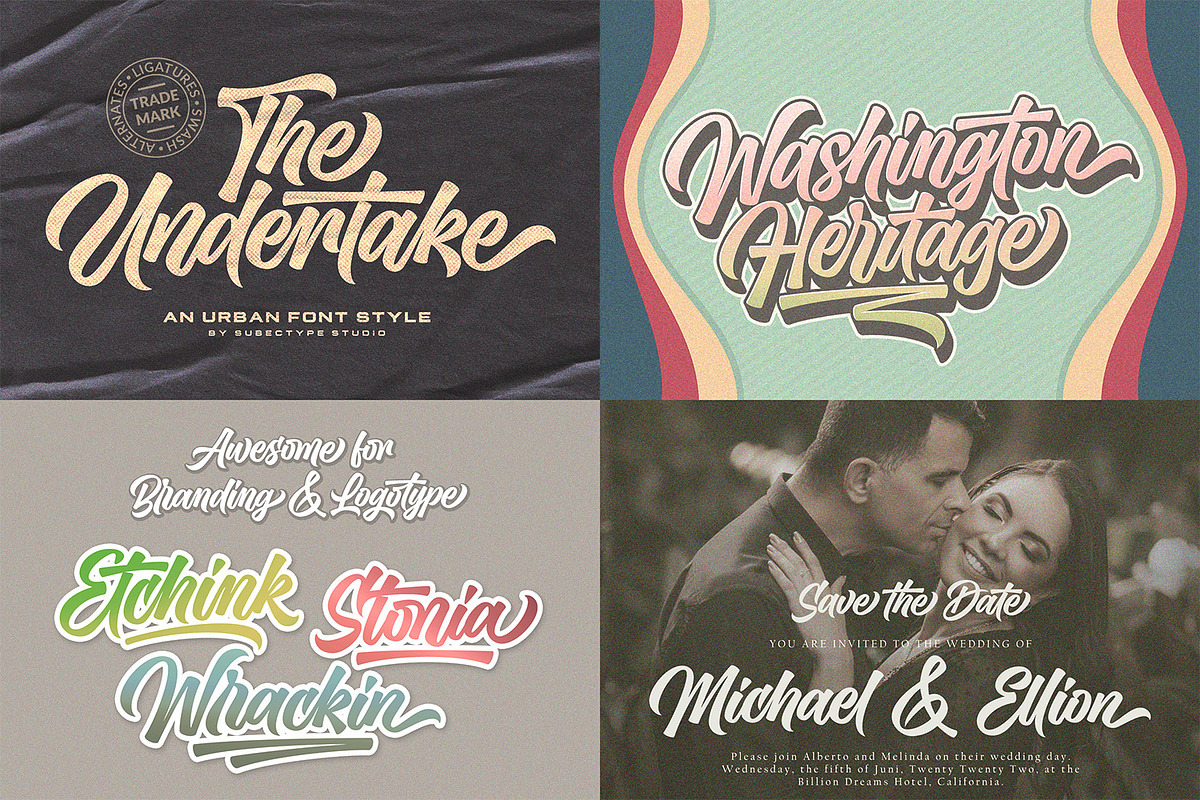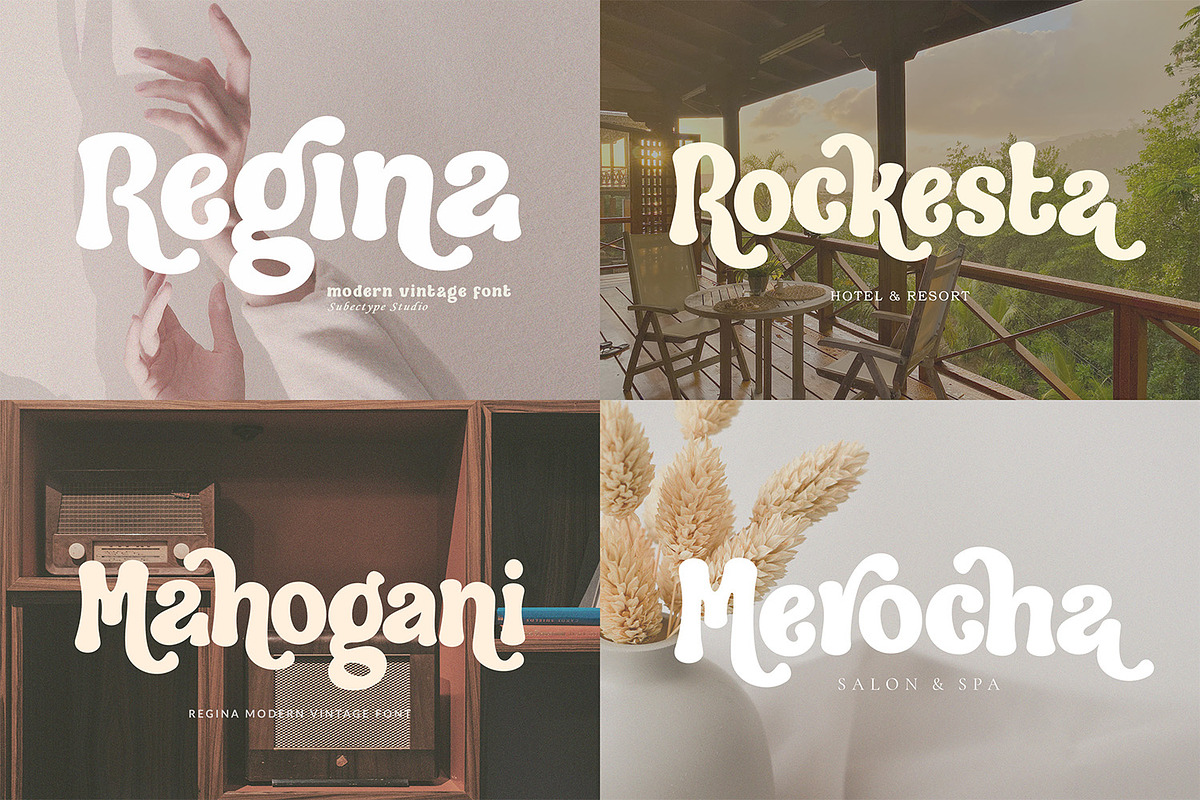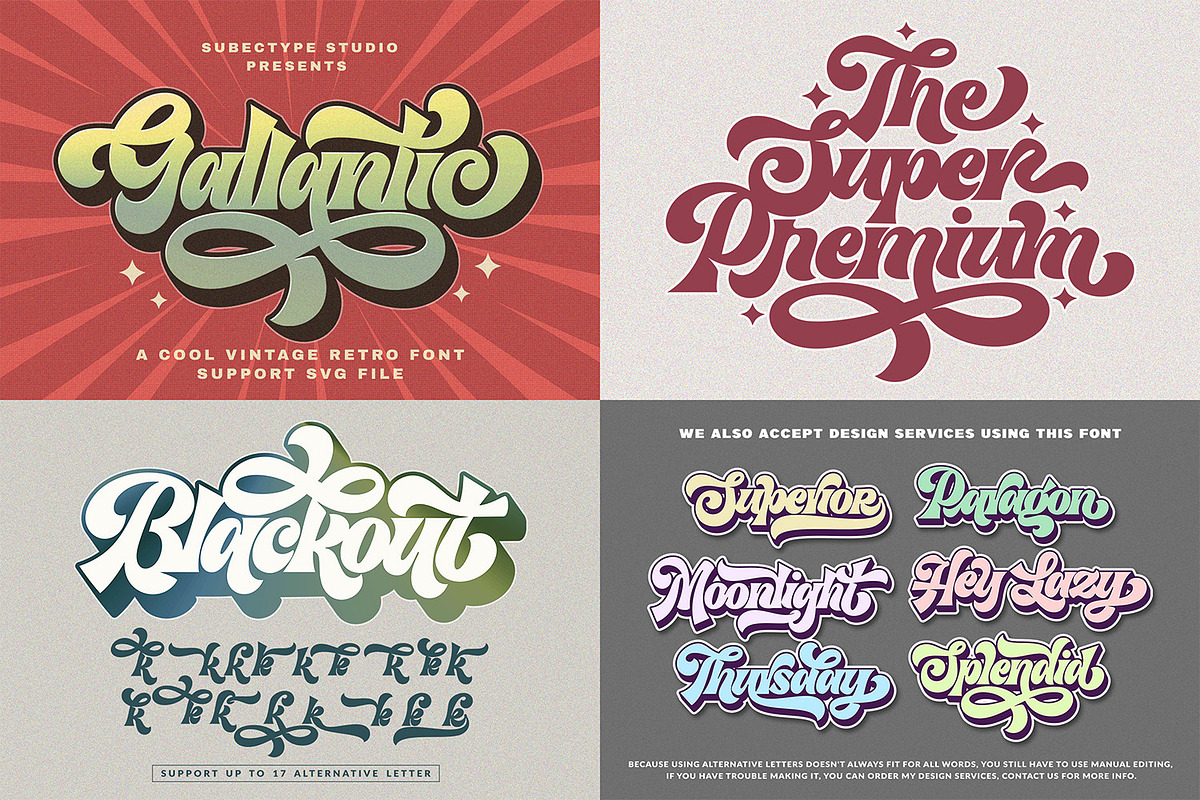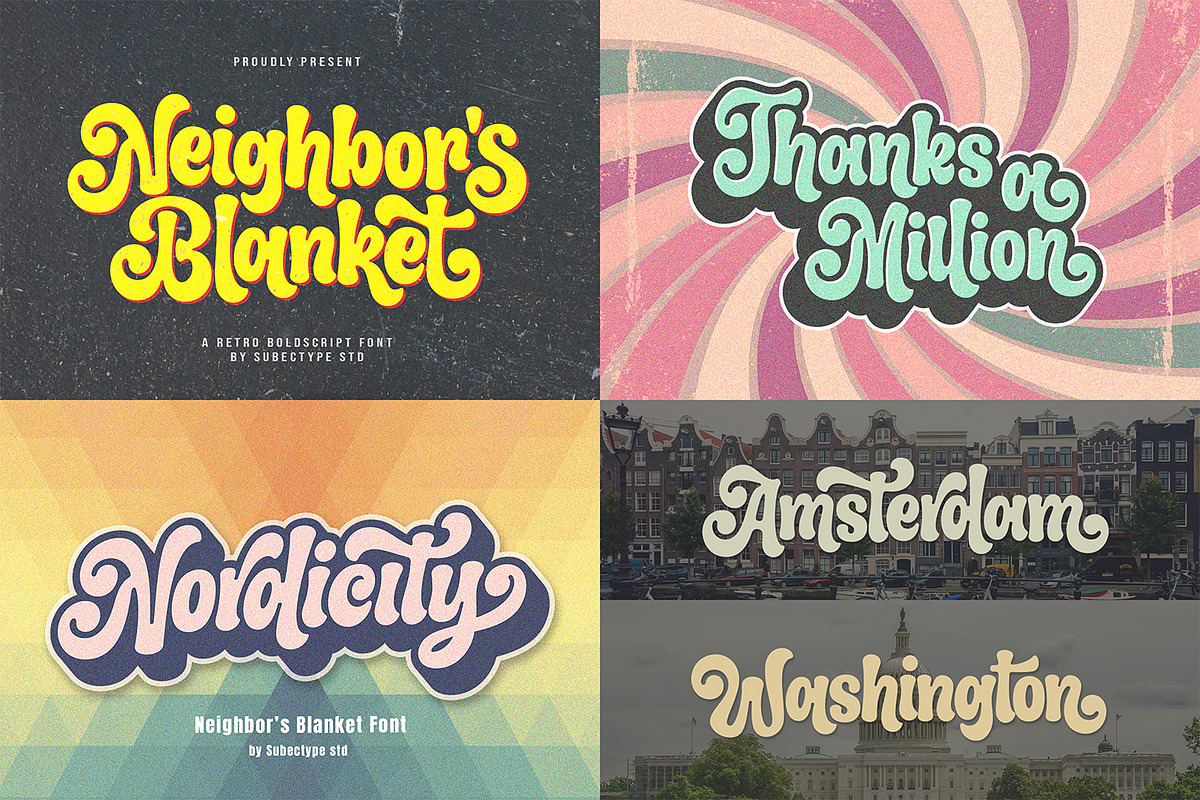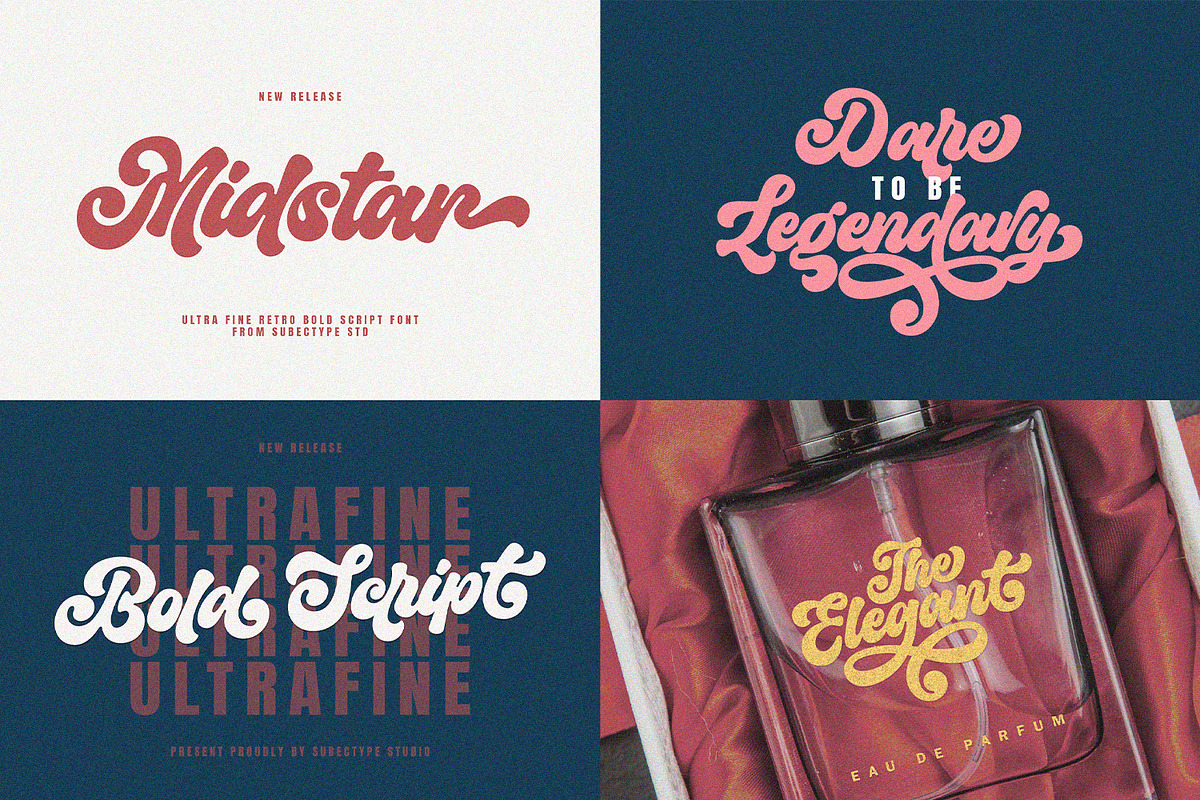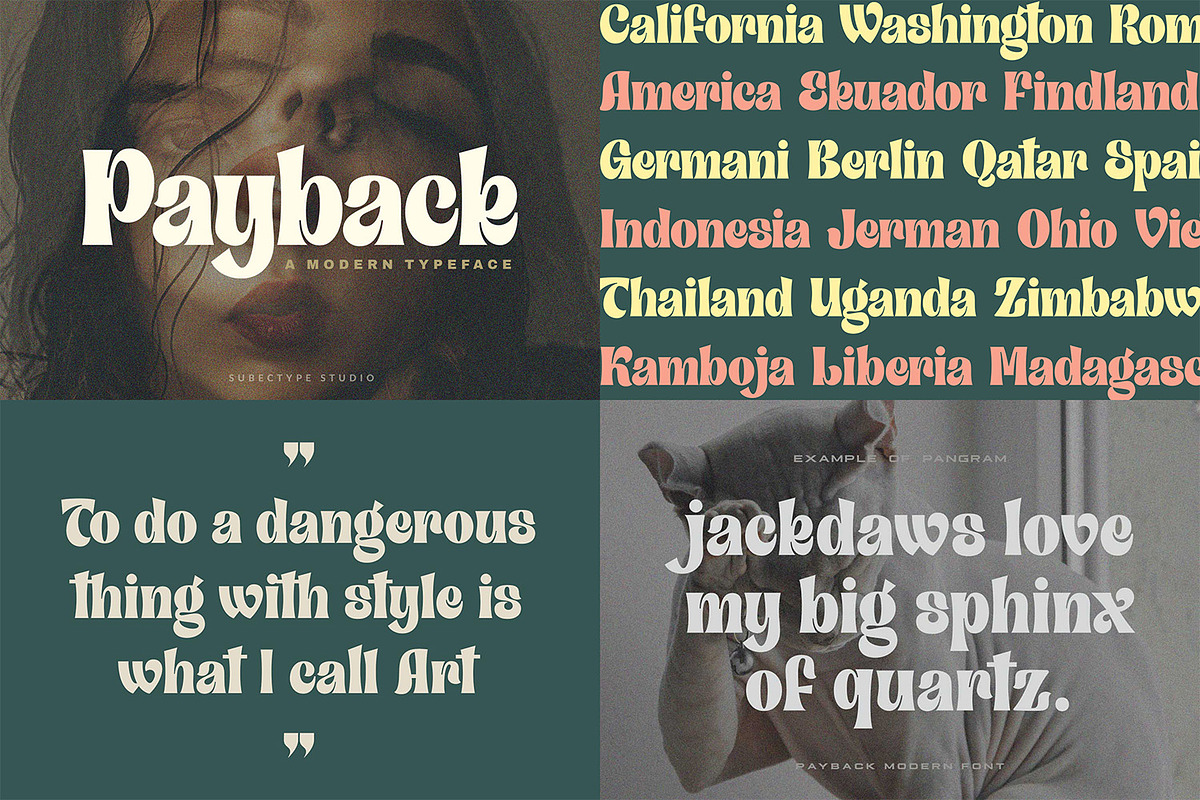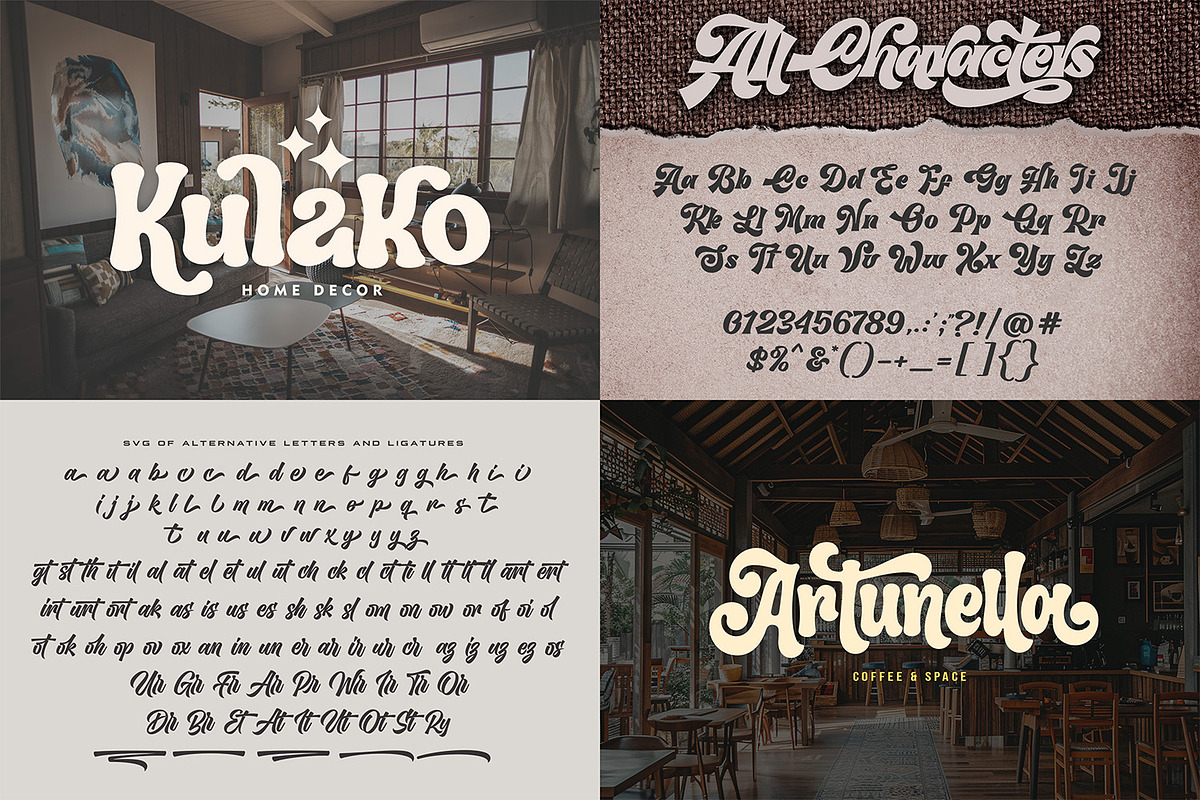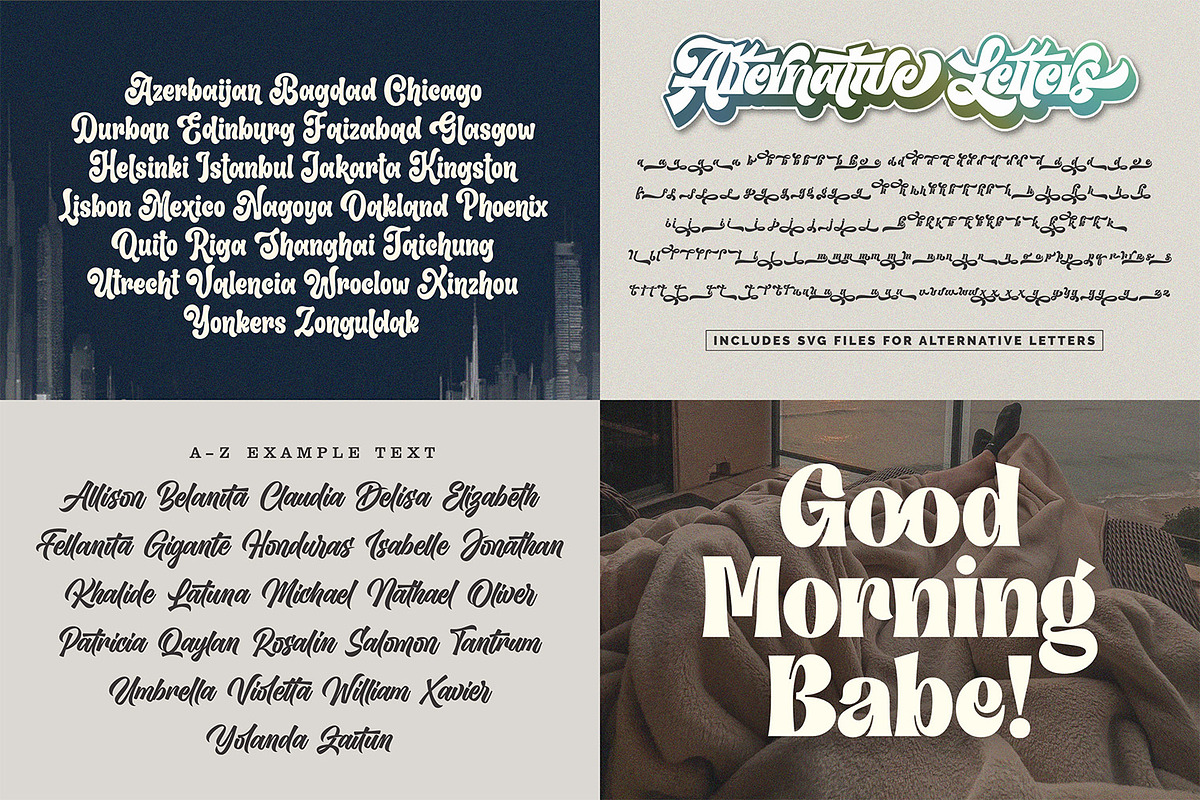
Modern Vintage - Font Bundle
Hello! I want to introduce my Greatest Modern Vintage font bundle. These are 6 best quality retro fonts with Ton of alternates letter. Normally the price is 150$ and just 14$ now. Don't miss it and happy design. Our font always includes Multilingual Support to make your branding reach a global audience.
6 Vintage Retro Fonts (Neighbor's blanket, Regina, Payback, Gallantic, Midstar, The Undertake)
Suitable for logos, invitation cards, apparels, headlines, business cards, inspirational quotes, t-shirt, posters, wedding design, packaging, and a lot more!